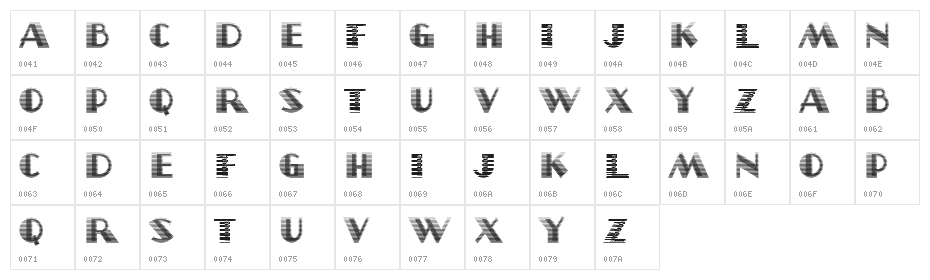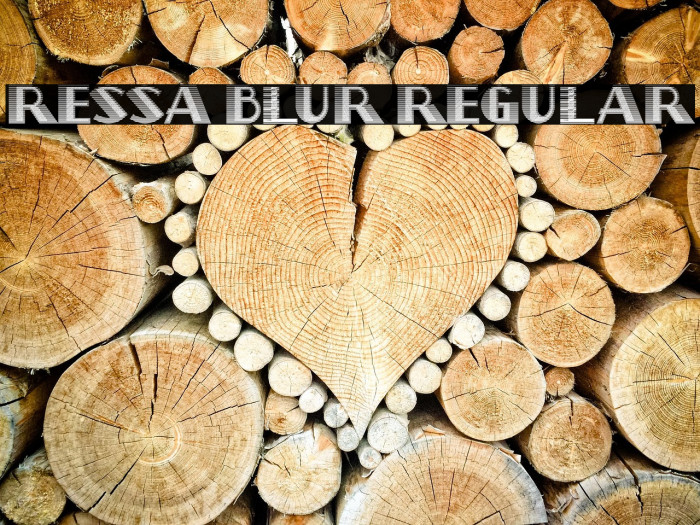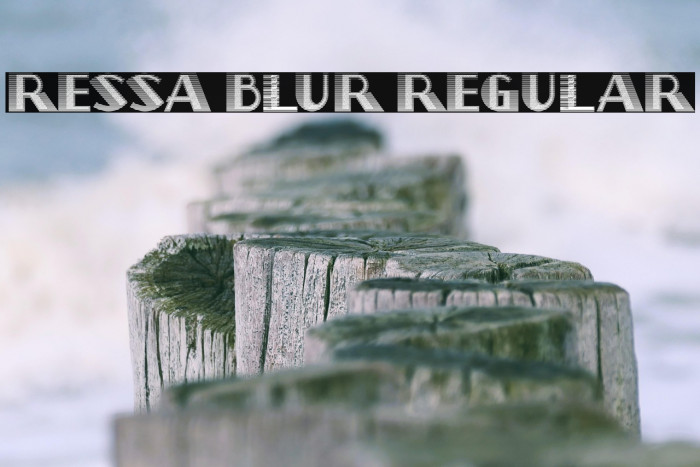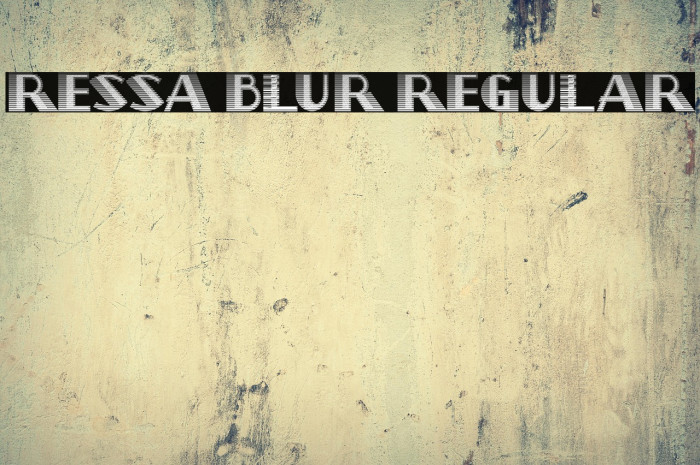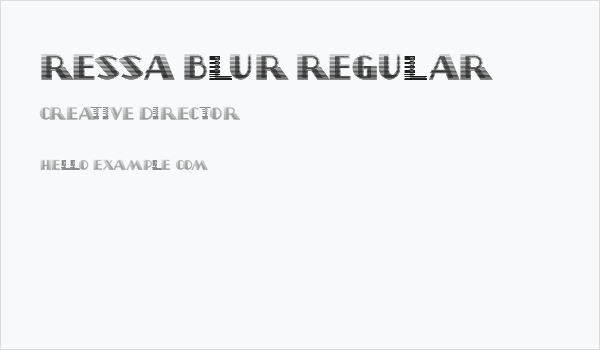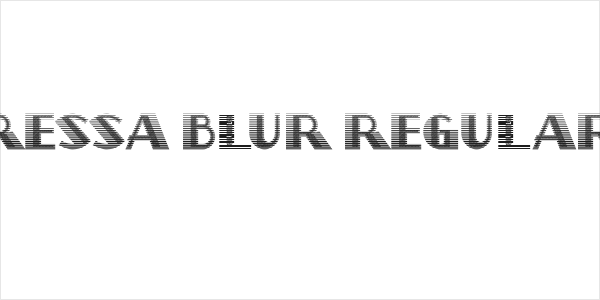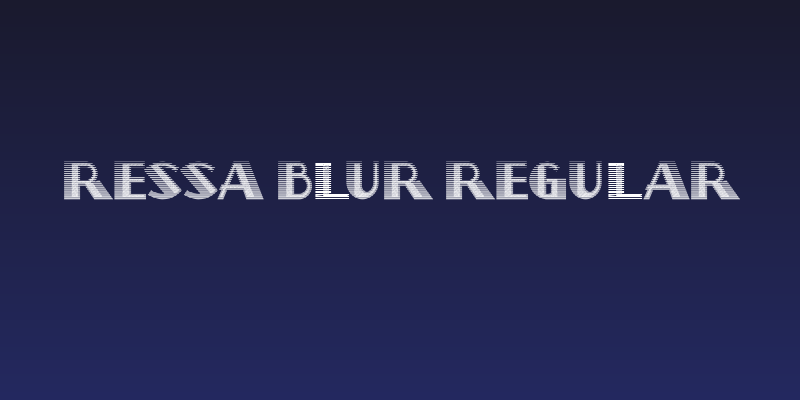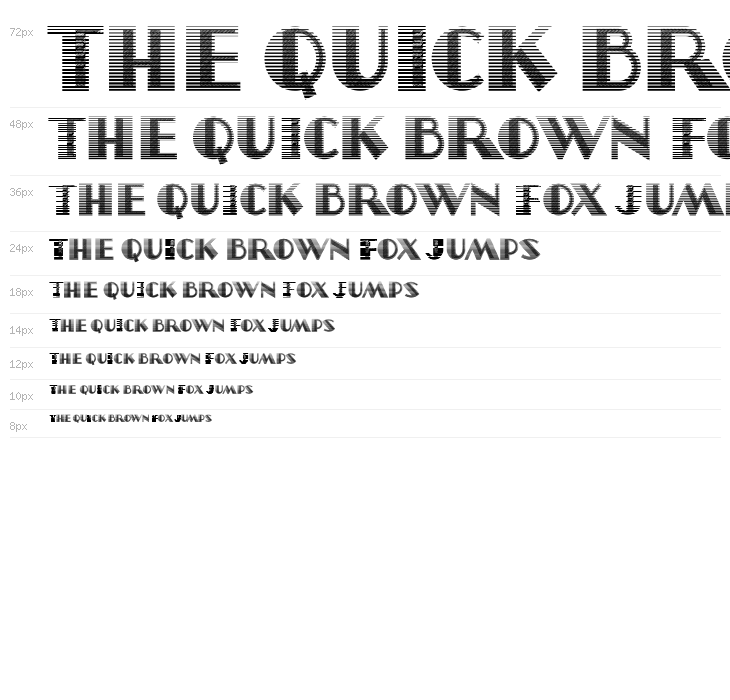
Ressa Blur Regular Font
Ressa Blur Regular Description
This font features a unique blurred effect that gives it a dynamic and modern appearance. The characters are bold and uppercase, with a distinct horizontal line pattern that creates a sense of motion and depth. The design is both eye-catching and innovative, making it suitable for creative and contemporary projects. The strokes are consistent in width, contributing to a uniform look across all letters. This font's style is particularly well-suited for headlines or display purposes where a striking visual impact is desired.
Proposed ProjectsIdeal for use in posters, advertisements, branding, and any project requiring a modern, eye-catching typeface.